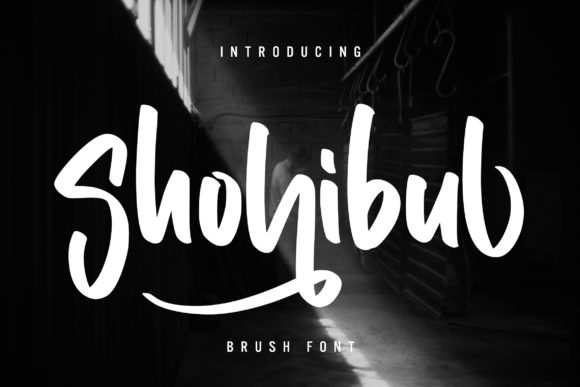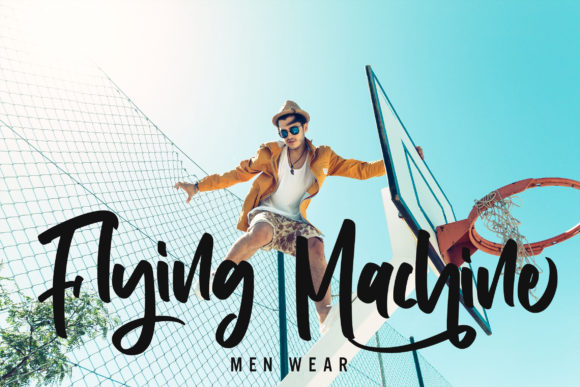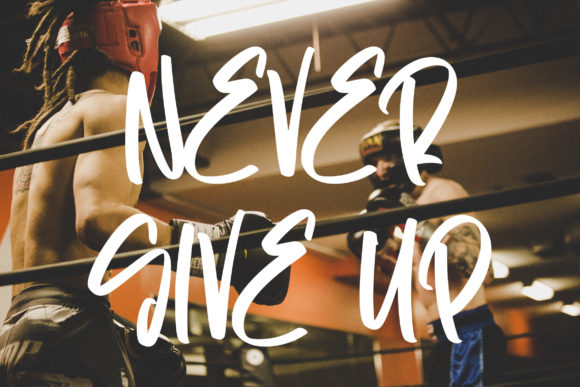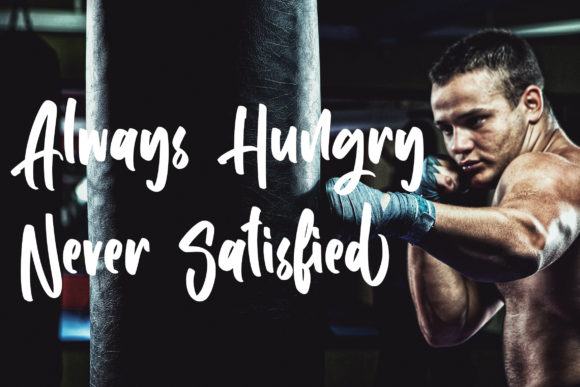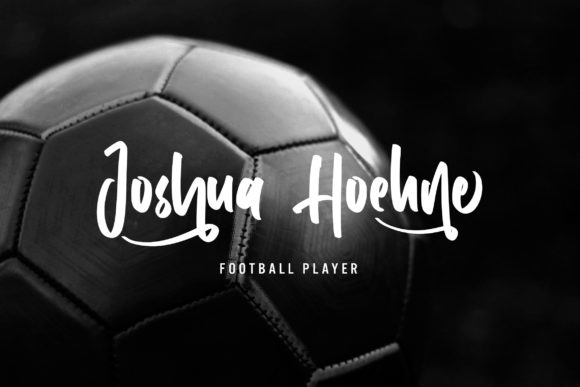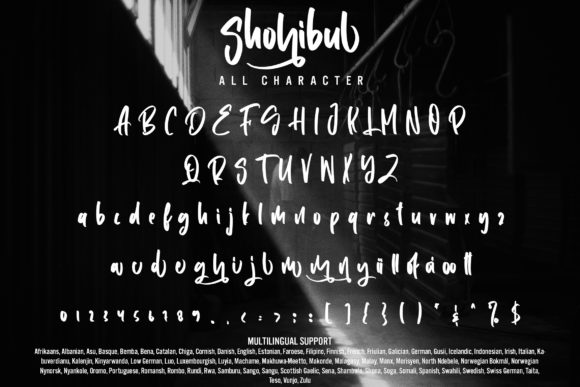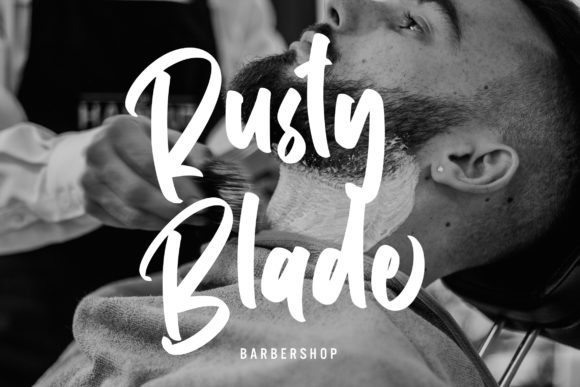
Shohibul is a bouncy and quirky handwritten font that brings a fresh and contemporary touch to your designs. With its unique style and playful vibe, this font is sure to make your creative ideas stand out.
The bouncy nature of Shohibul gives your designs a sense of liveliness and energy. Each letter has a playful and irregular shape, adding a touch of whimsy and character to your text. Whether you’re designing a logo, creating a poster, or crafting social media posts, Shohibul will bring a fun and modern twist to your projects.
The quirky charm of Shohibul lies in its irregular letterforms and uneven baseline. This hand-drawn aesthetic adds a sense of authenticity and uniqueness to your designs. The uneven strokes and varying letter sizes create a dynamic and eye-catching visual effect that grabs attention and adds personality to your text.
Shohibul is perfect for a variety of design applications. Its bold and distinctive style makes it ideal for headlines, titles, logos, branding, and any design project that requires a playful and contemporary touch. Whether you’re designing for a youthful audience or aiming to create a sense of fun and creativity, Shohibul is the font that will make your designs pop.
Add Shohibul to each of your creative ideas and watch them come to life. Its bouncy and quirky nature will bring a fresh and contemporary vibe to your designs, making them stand out from the crowd. Use it to create eye-catching graphics, engaging social media posts, memorable logos, and more.
In summary, Shohibul is a bouncy and quirky handwritten font that adds a fresh and contemporary touch to your designs. With its playful irregular letterforms and unique style, it brings a sense of fun and character to your creative ideas. Whether you’re designing for print or digital, Shohibul will make your projects stand out with its vibrant and energetic personality.